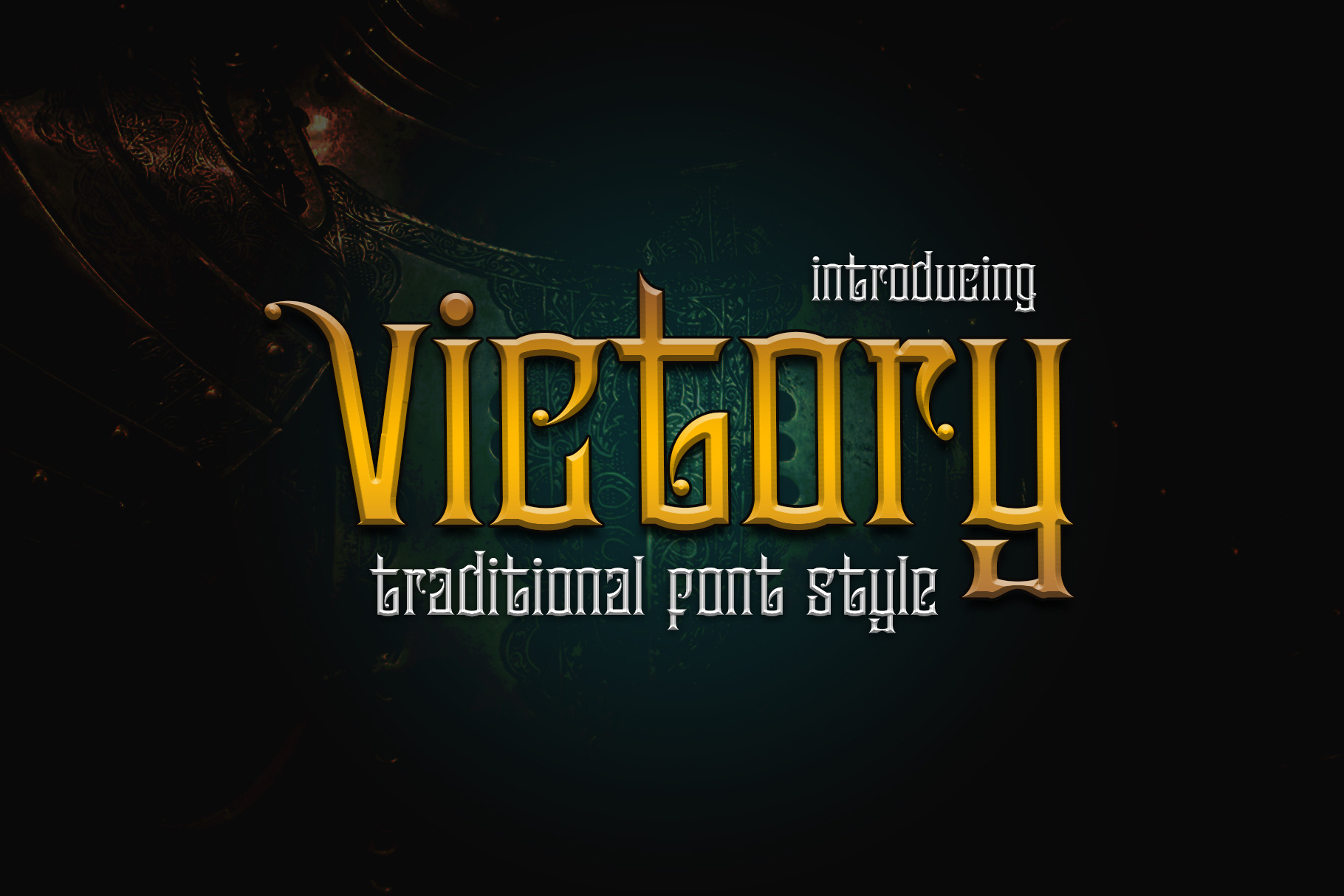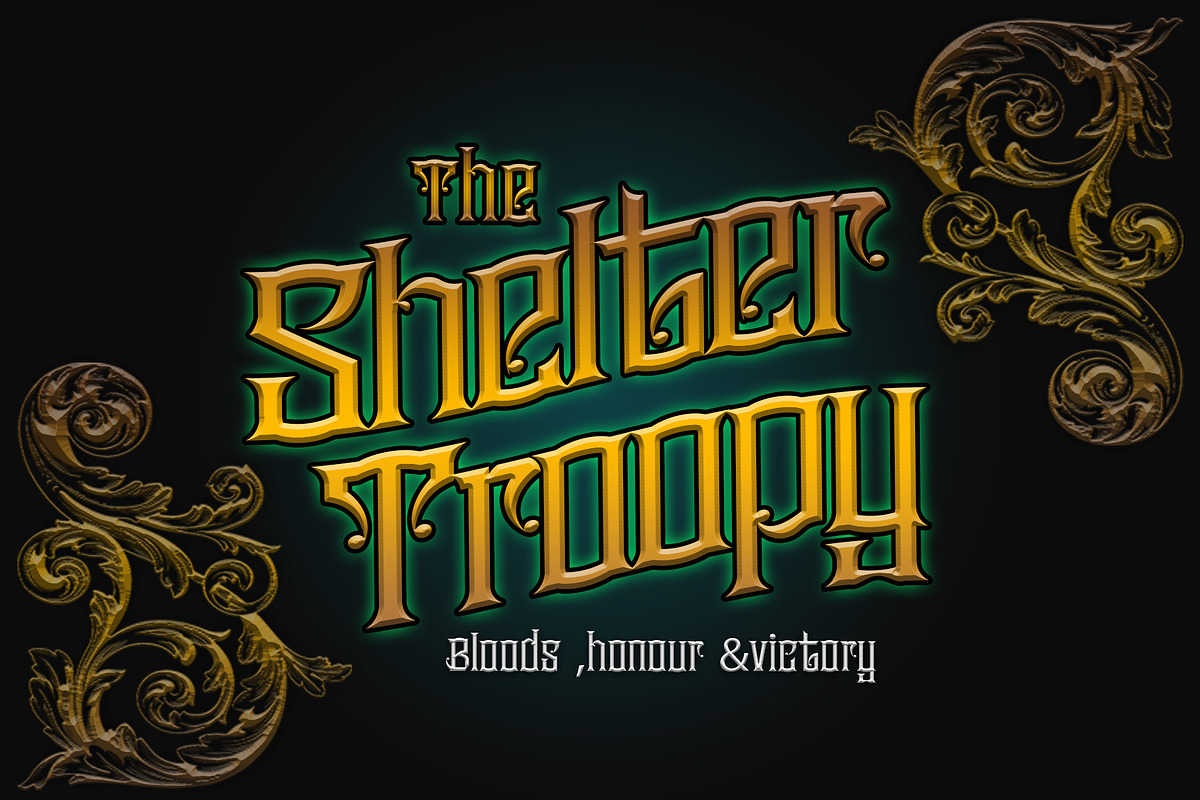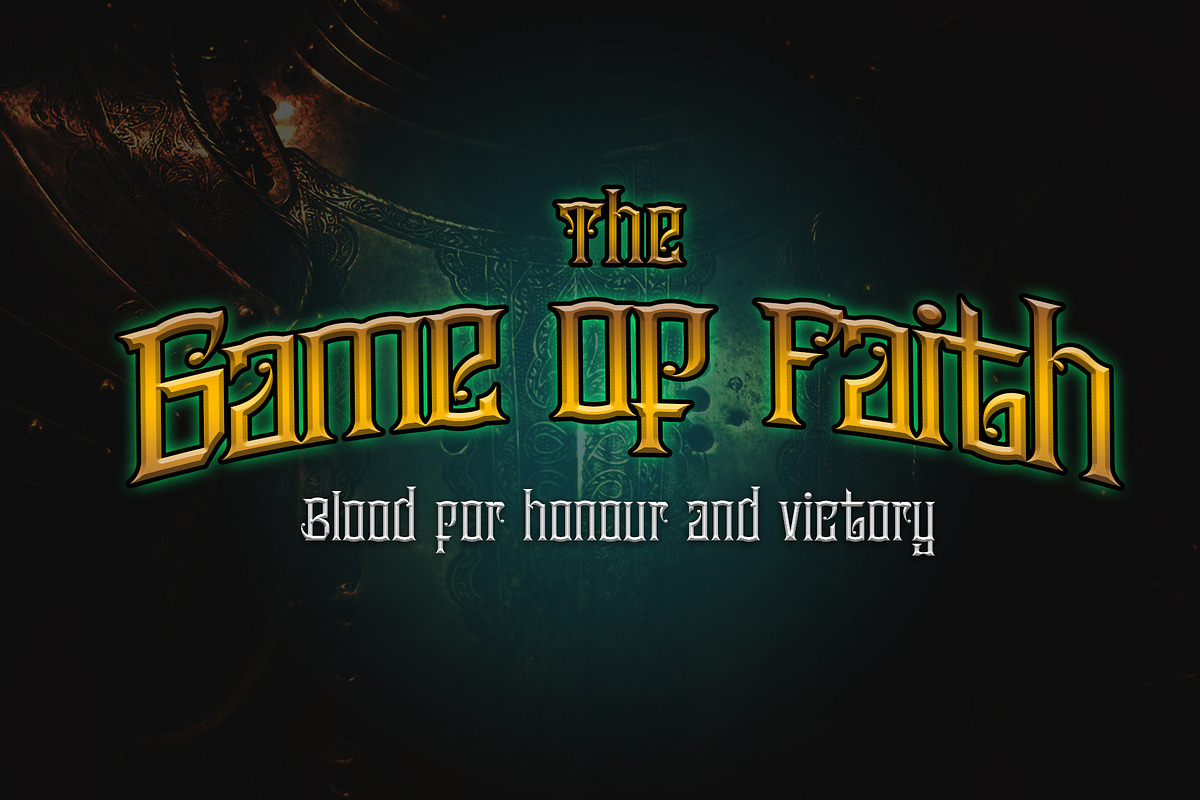
"Victory Font Display Classic era
The VICTORY font is used for display purposes, logos, titles, merchandise and t-shirt designs for other creative needs, with classic and ornamental styles, traditional shapes, very suitable for traditional, modern, culture, war, gothic and impression themed designs. elegant and classic. make this font an item to complement your design collection assets. the font has a design that combines lettering styles influenced by the Victorian era with striking ornamental elements. The font can be used to add a classic and elegant touch to visual designs such as posters, advertisements, magazines, and more. With its distinctive ornamental design, the font can also be used to emphasize keywords in text or titles, as well as to reinforce brand image.